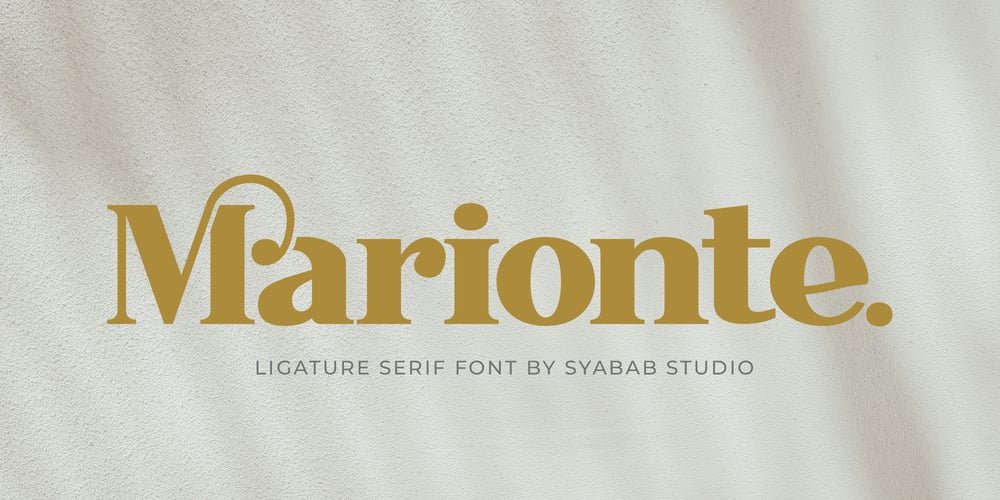
Marionte
Marionte font
Marionte Font Family was designed by Rahmad Khoiri and published by Syabab Studio. Marionte contains 1 styles and family package options. Marionte is a classic font with a modern style, so it adds a luxurious feel to this font, there are many ligatures and alternates that you can use for your design, and this will make your design more stunning and stand out.This serif font contains a number of ‘lowercase’ (A, E, U, I, O) and Uppercase alternate characters. this can be accessed by enabling ‘Stylistic Alternates’ in any software that supports OpenType.all ligatures and special characters are also accessible via the Glyphs panel. it is available in most Adobe & Affinity Designer software.